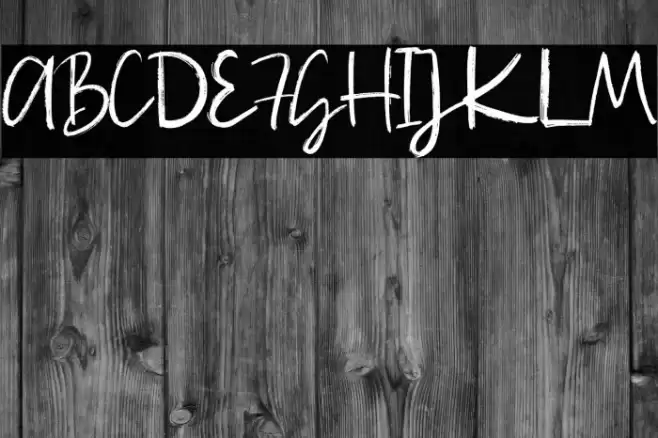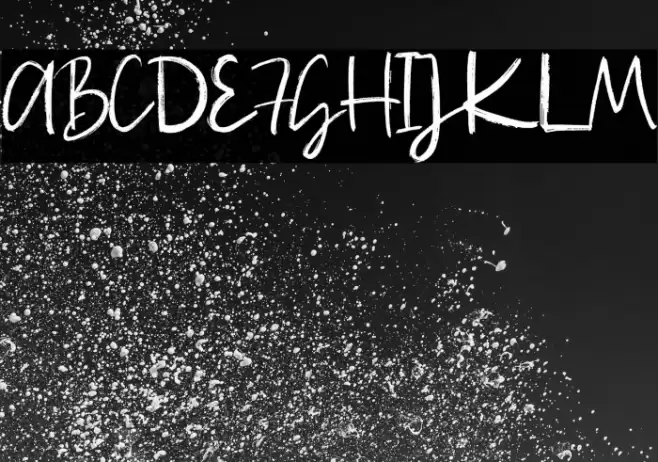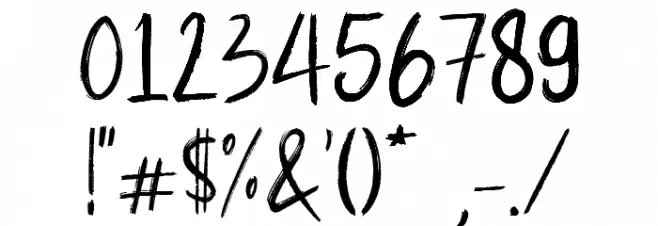
Itadakimase Stylistic Demo Vers Font
Itadakimase Stylistic Demo Vers Description
This font exhibits a playful and energetic handwritten style, characterized by its dynamic and irregular strokes. The uppercase letters are bold and slightly slanted, giving a sense of movement and spontaneity. The lowercase letters maintain a consistent flow, with some characters featuring loops and curves that enhance its casual appearance. The numerals are bold and clear, matching the overall lively aesthetic. Special characters are creatively integrated, maintaining the font's unique personality. This font is suitable for projects that require a personal touch, such as invitations, greeting cards, or creative branding.
A playful, energetic handwritten font with dynamic strokes and a casual feel from Uncategorized fonts.
- Proposed Projects: Ideal for invitations, greeting cards, creative branding, and personal projects.